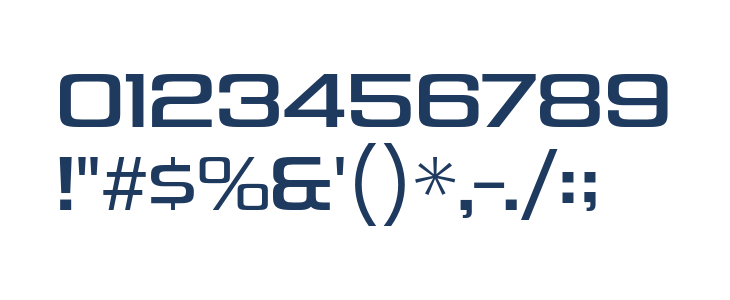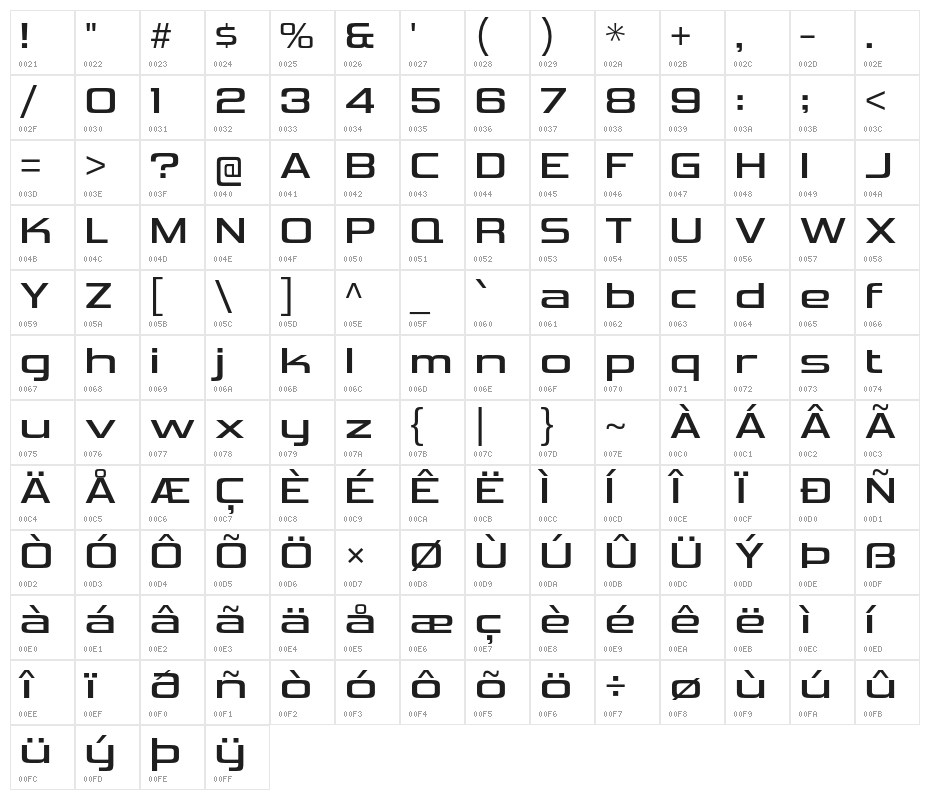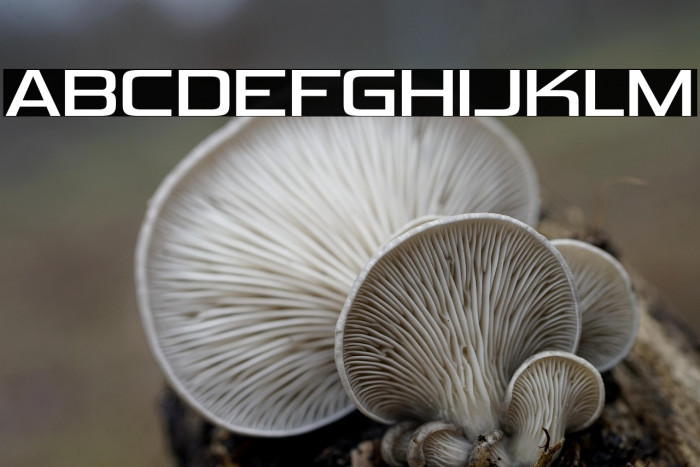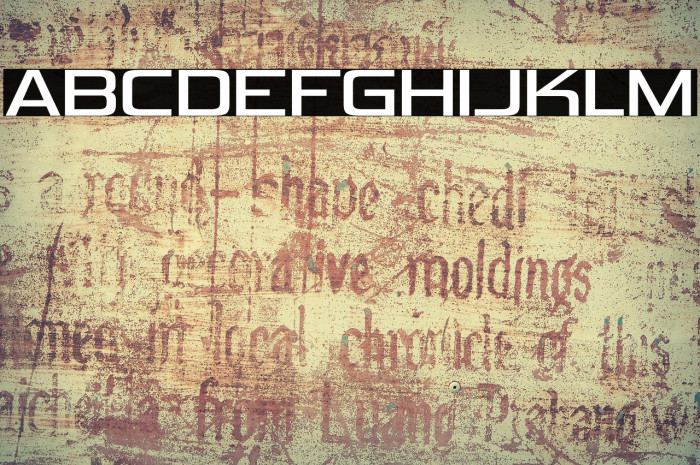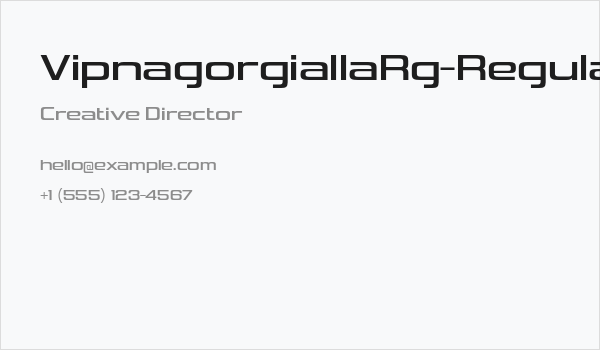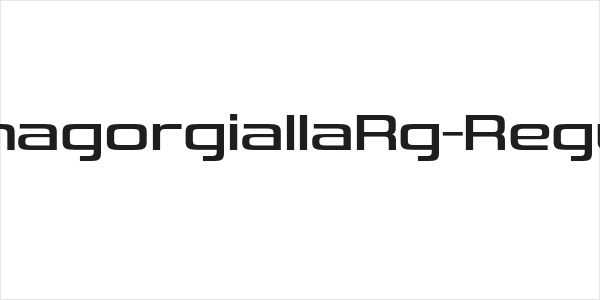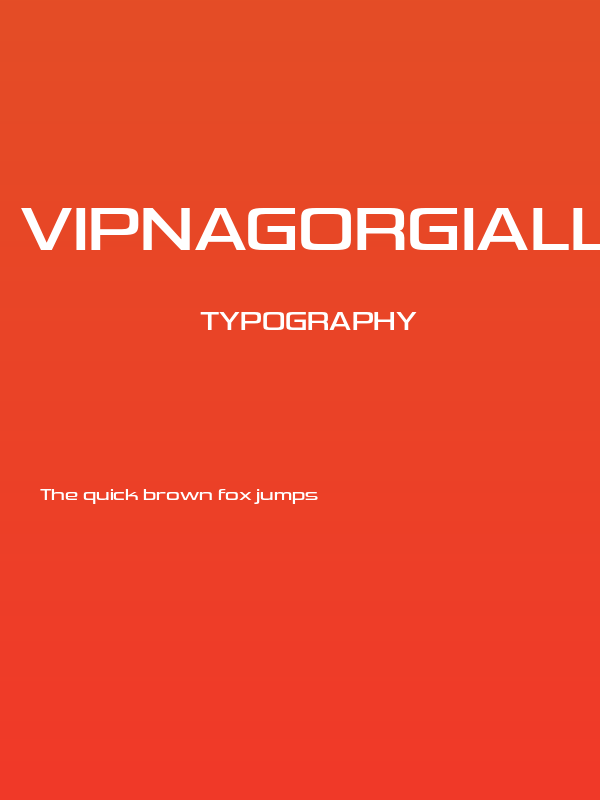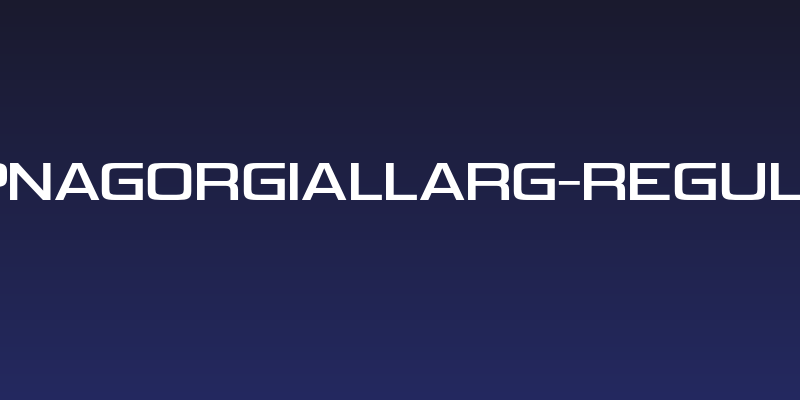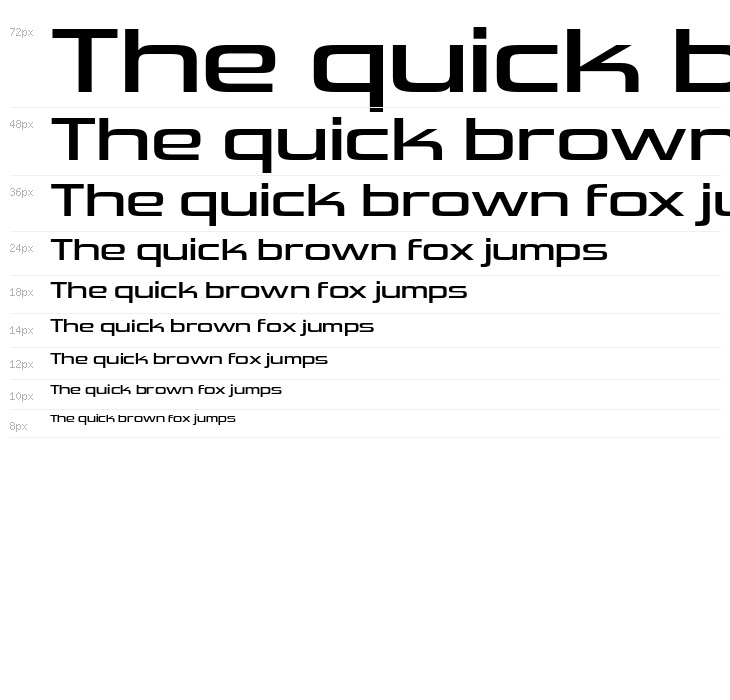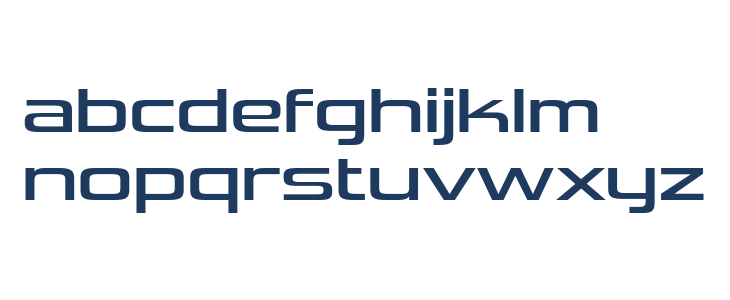
VipnagorgiallaRg-Regular Font
VipnagorgiallaRg-Regular Description
This font features a modern and sleek design with geometric influences. The characters are structured with clean lines and a uniform stroke width, giving it a futuristic and technical appearance. The uppercase and lowercase letters maintain a consistent style, with rounded edges that soften the overall look. The numerals and special characters are designed to match the letterforms, ensuring a cohesive appearance across all text. The font's clarity and precision make it suitable for various digital and print applications.
| Use Case | Headlines, Logos, Digital interfaces |
| Proposed Projects | Ideal for technology branding, digital interfaces, and modern advertising campaigns. |